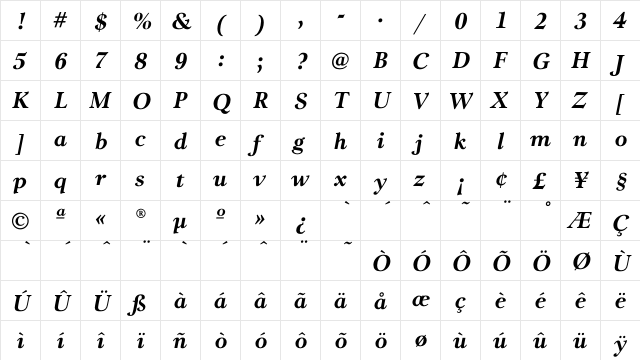
LombaBoldItalic Regular Font Preview
Design Context for LombaBoldItalic Typeface
LombaBoldItalic takes a measured approach to typography — its balanced proportions and neutral character make it a reliable workhorse for both digital and print work. The dynamic lean of this cut emphasises speed and emphasis in any layout. The heavy weight commands attention and anchors typographic hierarchies.
Pro Tip: Use LombaBoldItalic for emphasis, pull quotes, and subheadings where its slanted energy can add rhythm to the layout.